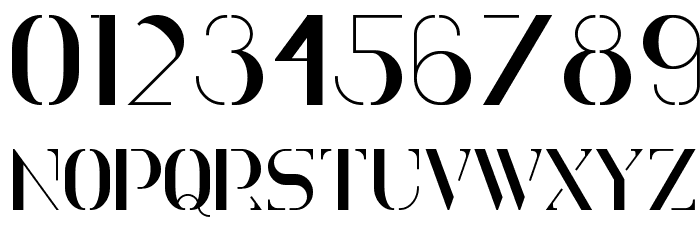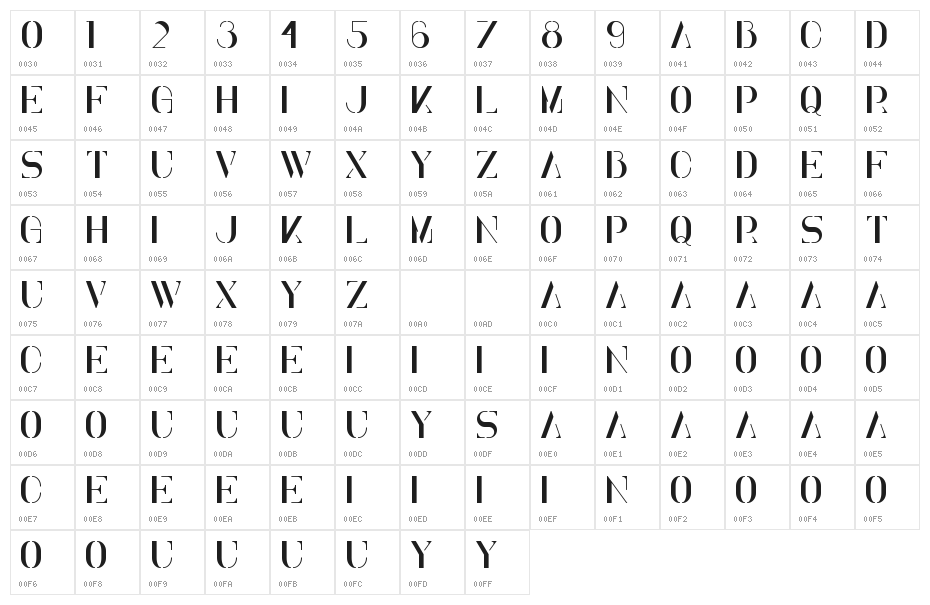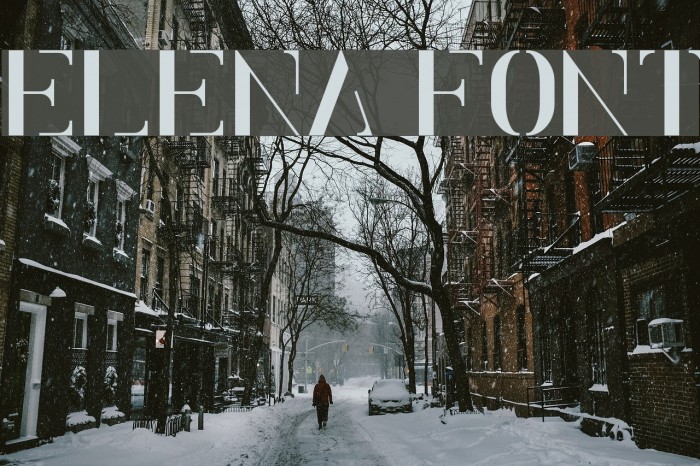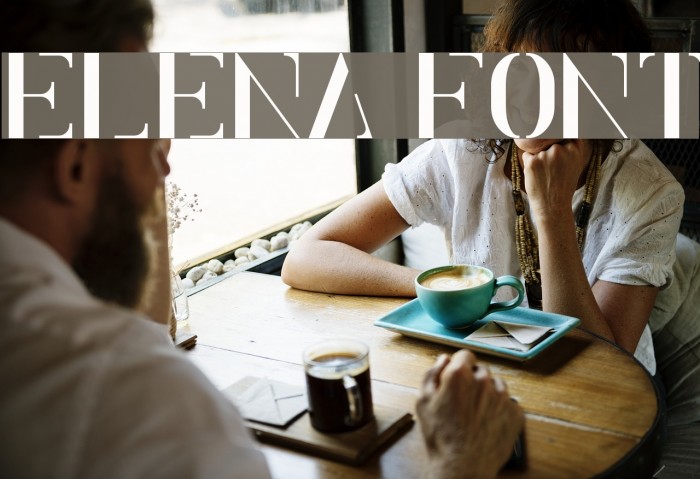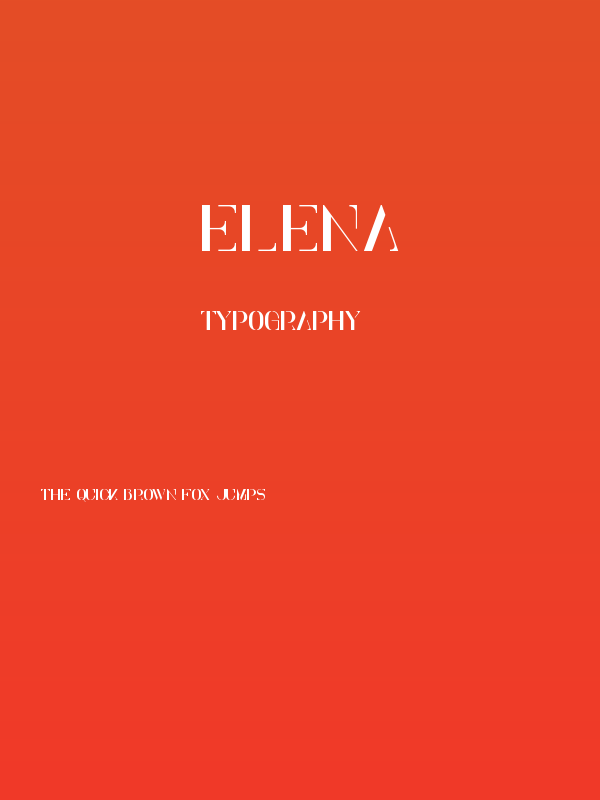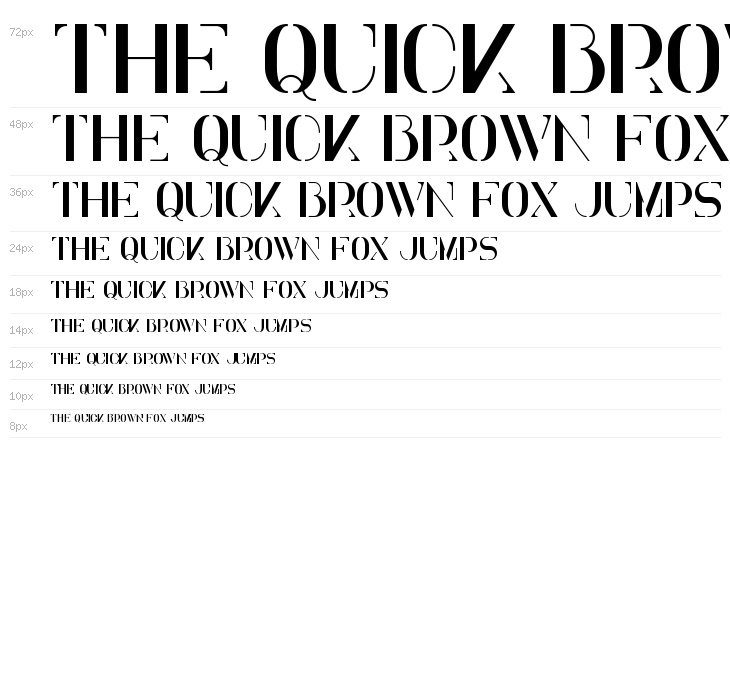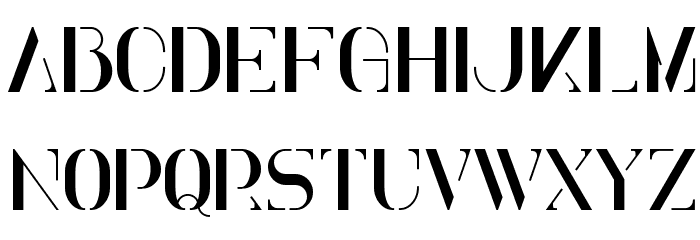
Elena Font
Elena Description
This font features a unique and modern design with a high contrast between thick and thin strokes. The characters are crafted with a stencil-like appearance, incorporating sharp angles and geometric shapes. The uppercase letters are bold and striking, while the lowercase letters maintain a consistent style. The numbers are designed to match the overall aesthetic, with a sleek and contemporary look. The special characters are integrated seamlessly, enhancing the font's versatility. This typeface is ideal for projects that require a bold and artistic touch, offering a distinctive and memorable visual impact.
| Proposed Projects | Ideal for branding, poster design, editorial layouts, and packaging that require a modern and artistic flair. |